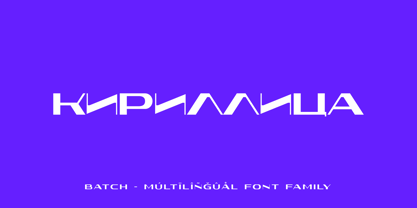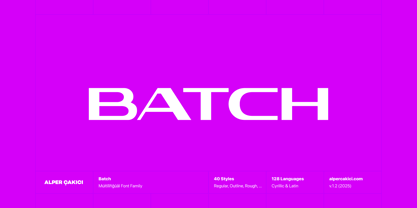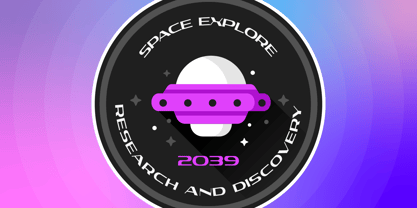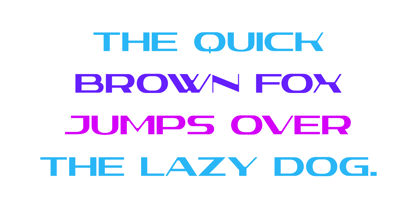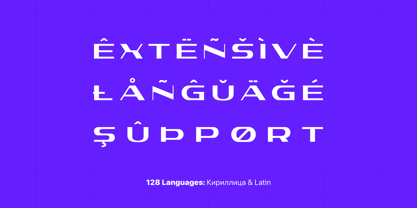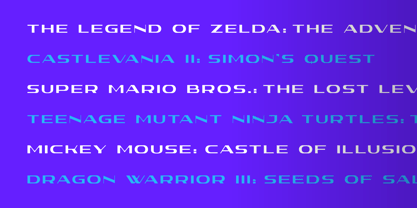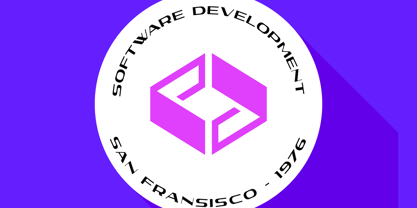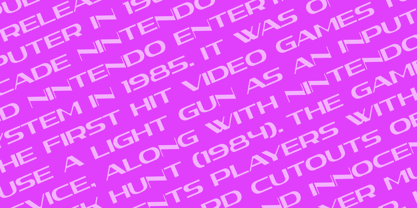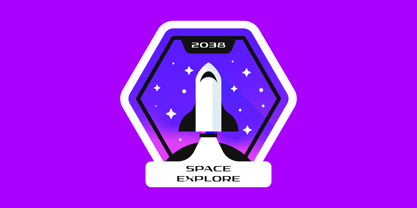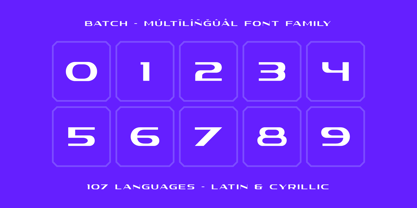
Batch
by AlperCakici
The Batch Font Family was designed by Alper Çakıcı and published by AlperCakici. Batch contains 1 styles.
Batch - A Sans Serif Font : Batch is a carefully crafted display font. It has Extended Latin and Cyrillic characters. It created for poster, web, brand and social media designs.